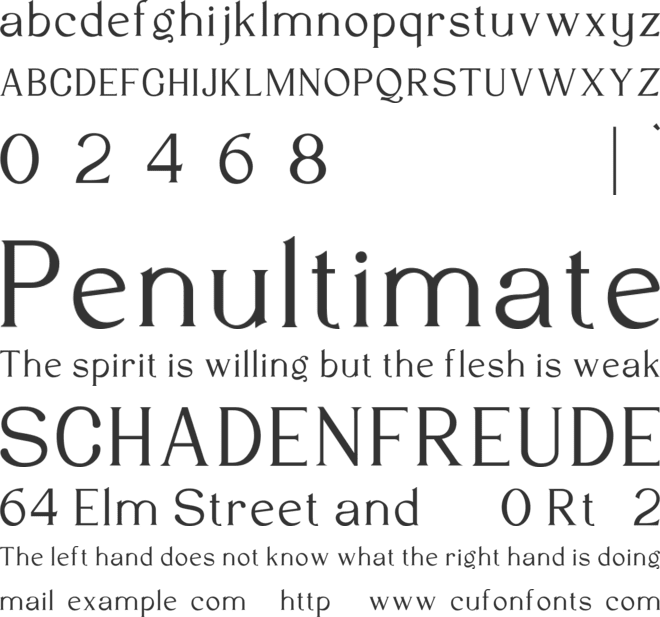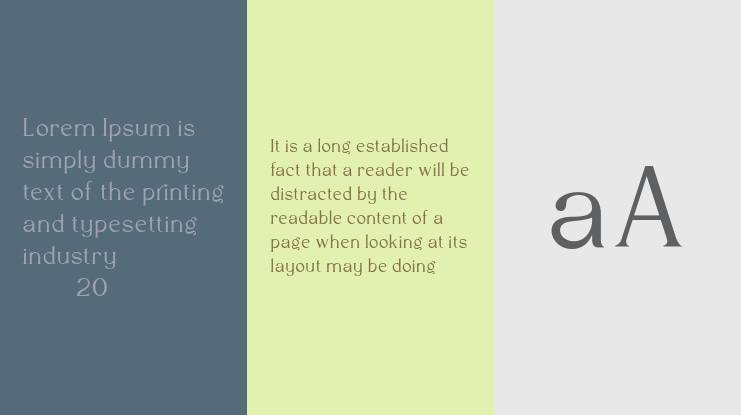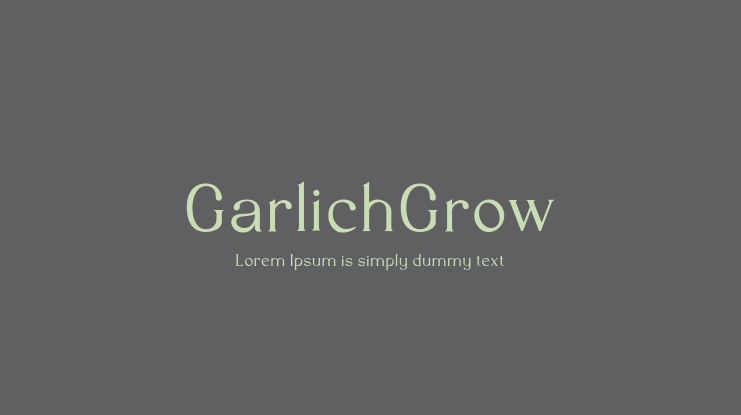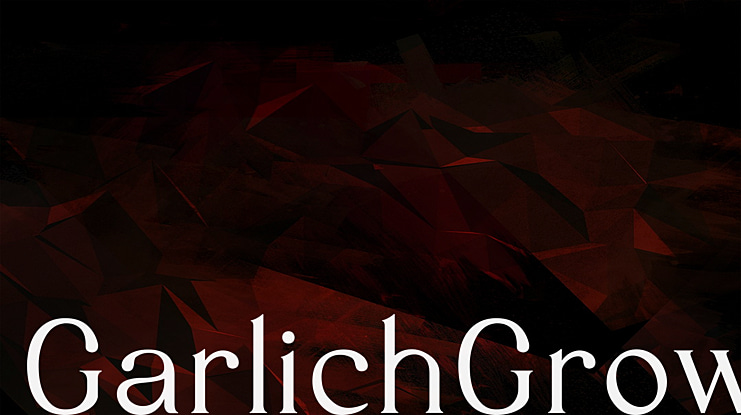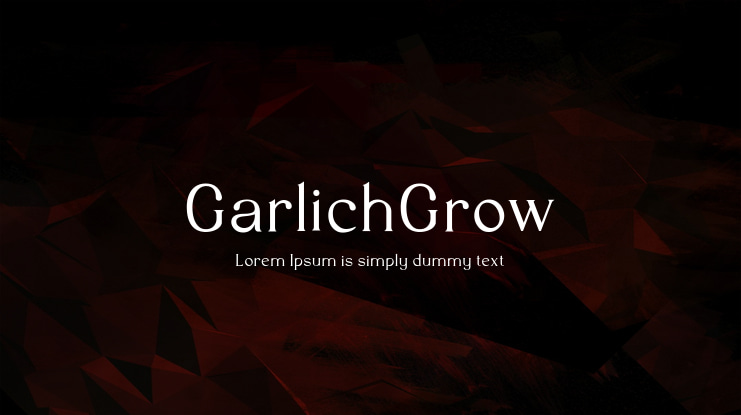
GarlichGrow Font
Garlich Grow is a serif font with a modern & elegant touch. The thin character is perfect for the design needs of a modern & elegant layout. Equipped with alternates, standard ligature and multilingual tools to make it easier for you to use various design purposes.